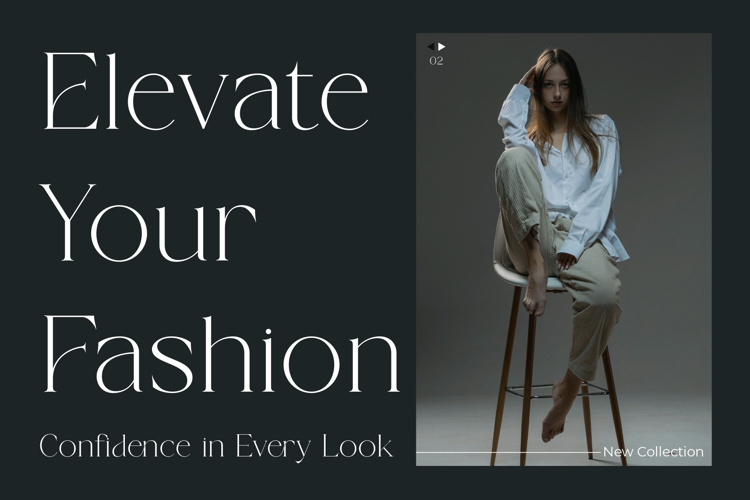
Cremore Font
Cremore – Luxury Serif Typeface – Cremore features unique and classy capital letters A to Z and also comes with unique alternates making Cremore a beautiful font that can be customized for various projects and jobs you want.Font Bundles
Cremore is perfect for: logos, brands, wedding invitations, business cards, greeting cards, posters, magazines, social media, agenda prints, and websites.